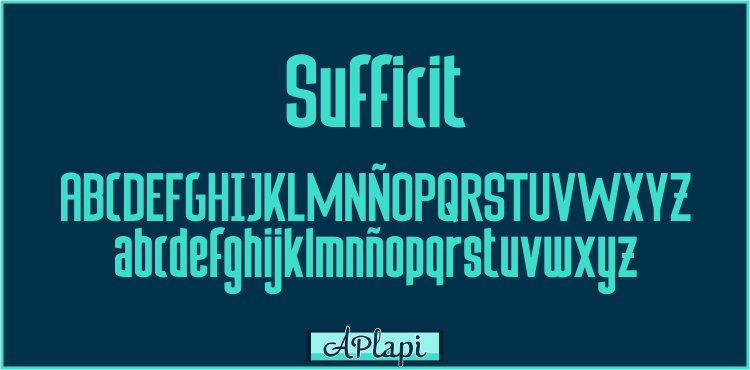
Font name: | Sufficit |
Author: | APlaPi |
Note by APlaPi | |
"Sufficit" is a tall and heavy yet innoxious type which works well preferably on medium to large sizes Additional characters include accents (mainly as a result of my being Spanish and the frequent use we make of them) If you like this font, feel free to show your thankfulness with the ‘Get the author a fresh thesaurus via Paypal ’ misnamed ‘Donate to the Author’ situated right below the download button on the right of this page. "Sufficit" is one of the first types I proudly created completely from scratch. Any donation will be welcome! |